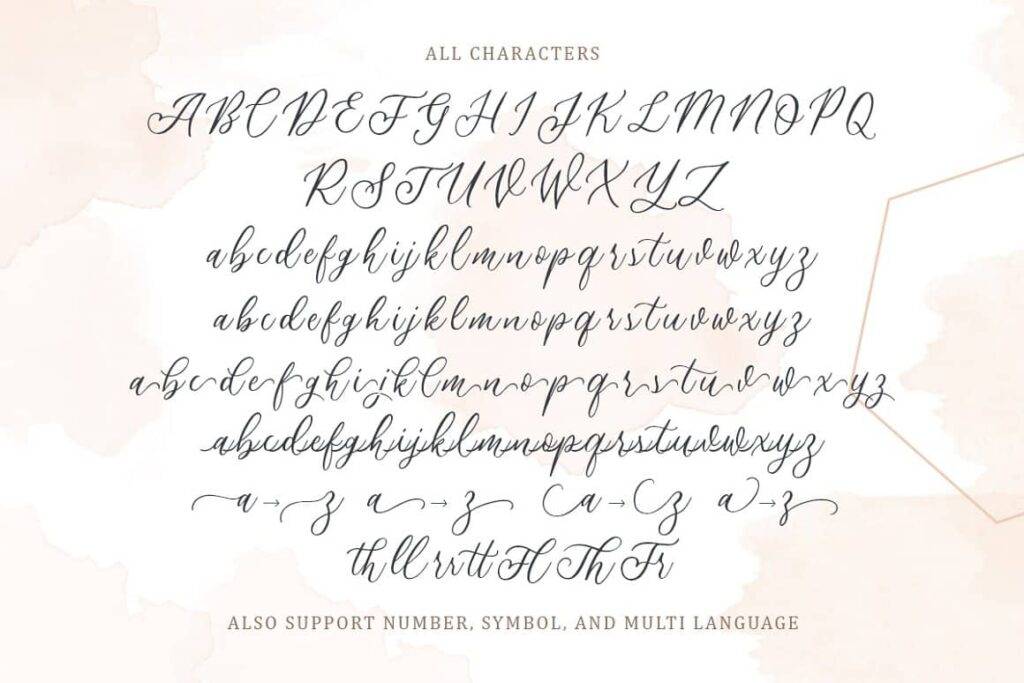
About Athalia Script Font
Introducing Athalia Font is a lovely and simple artistic multipurpose Script and calligraphy font. This lovely font is perfect for giving your design a traditional feel, a casual style, and a luxurious appearance. Athalia is a beautiful modern script with a luxurious vibe. The font is ideal for applications that require natural handwriting. Letterhend developed and shared the font. On March 8, 2019, the font was made public.
This typeface includes uppercase, lowercase, punctuations, symbols, numerals, stylistic set alternates, ligatures, and multilingual support. Warm colors work better for the font than darker colors. The beautiful script and calligraphy font are available in two formats: TTF and OFT. The font is compatible with Windows, Apple/Mac, Linux, Cricut, Silhouette, and other cutting machines. The font has already been used in many projects where designers needed the touch of Calligraphy, and it came out really good. So, you can also give this stunning font a chance if you want to have a vibe of Calligraphy in your project.
The font can be used in headlines, logotypes, clothes, invitations, branding, packaging, and advertising, among other things. The font is ideal for creating magazine covers that stand out. You can also include it in the body of any article or publication.
Athalia Script Font View
StyleScript, Calligraphy
DesignerLetterhend